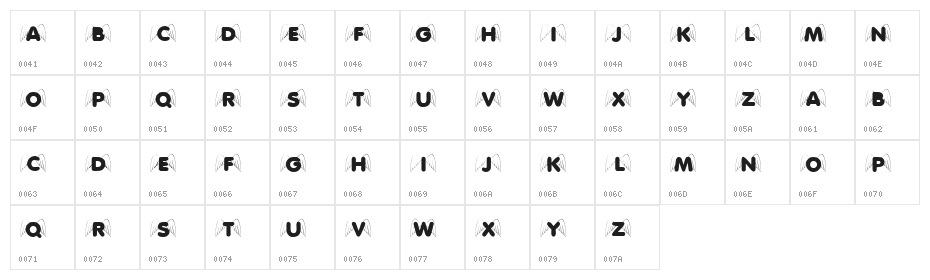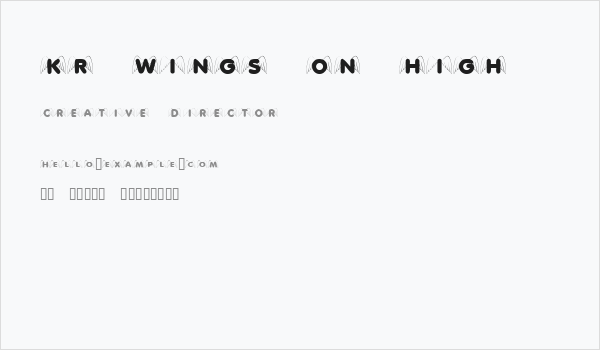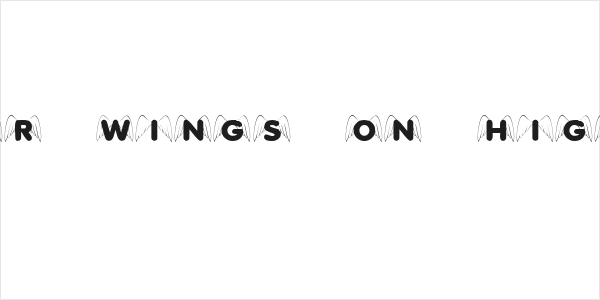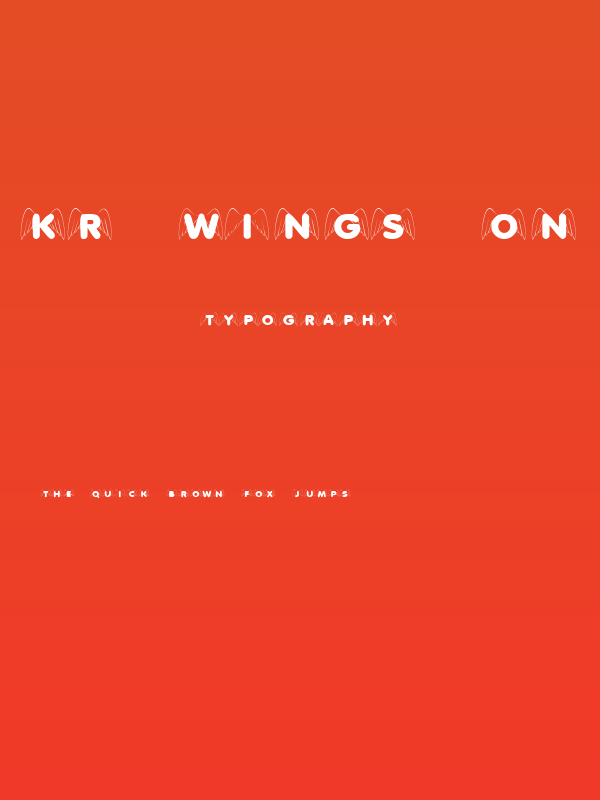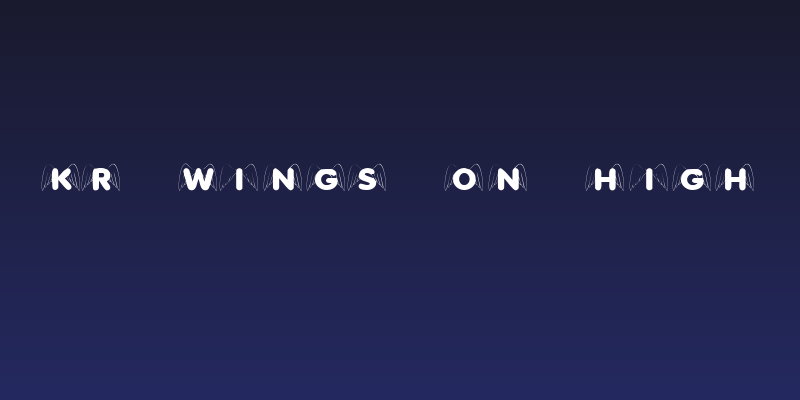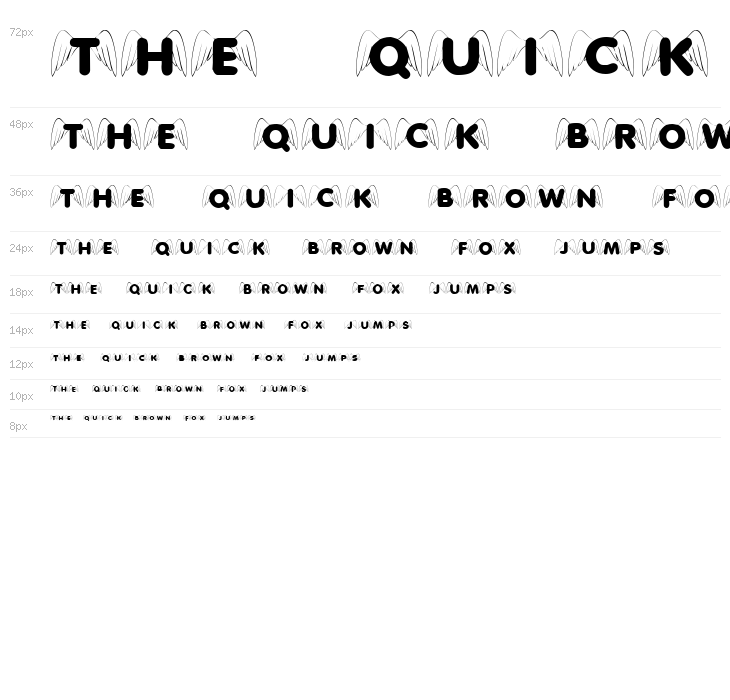
KR Wings On High Font
KR Wings On High Description
This decorative font features a unique design where each character is adorned with intricate wing-like embellishments, giving it a whimsical and fantasy-inspired appearance. The uppercase letters are bold and rounded, providing a strong contrast to the delicate, airy wings that extend from each side. The font lacks lowercase letters and numbers, focusing solely on uppercase characters, which enhances its suitability for eye-catching titles and headings. The special characters are represented by solid rectangles, adding a modern and abstract touch to the overall design. This font is ideal for projects that require a touch of elegance and creativity, such as fantasy-themed posters, book covers, or branding materials that aim to capture attention with a distinctive style.
| Proposed Projects | Fantasy-themed posters, book covers, branding materials, eye-catching titles. |